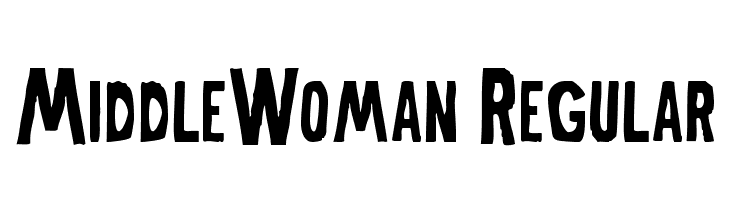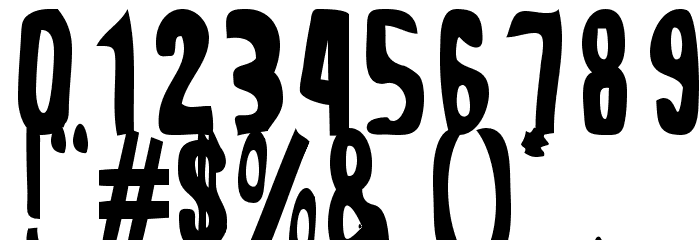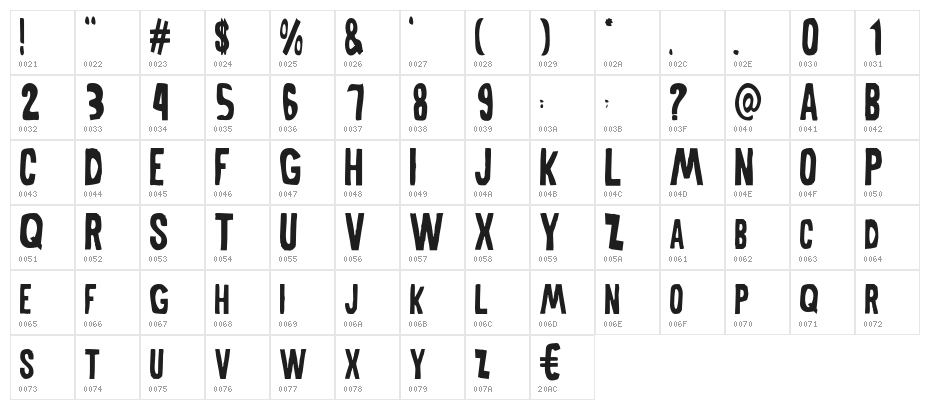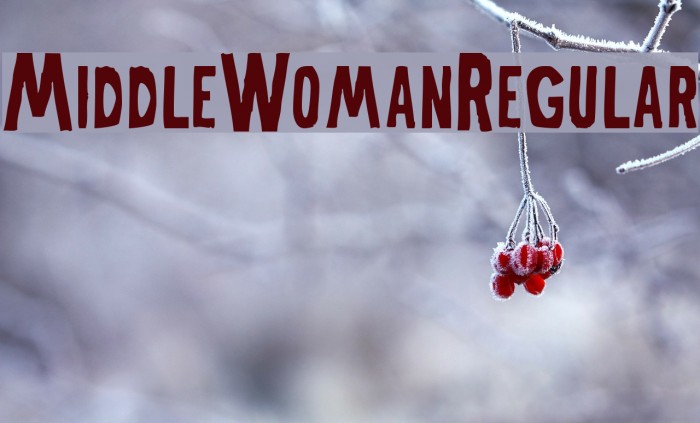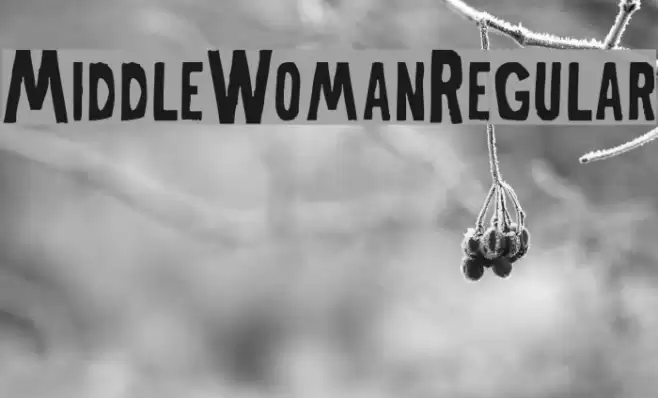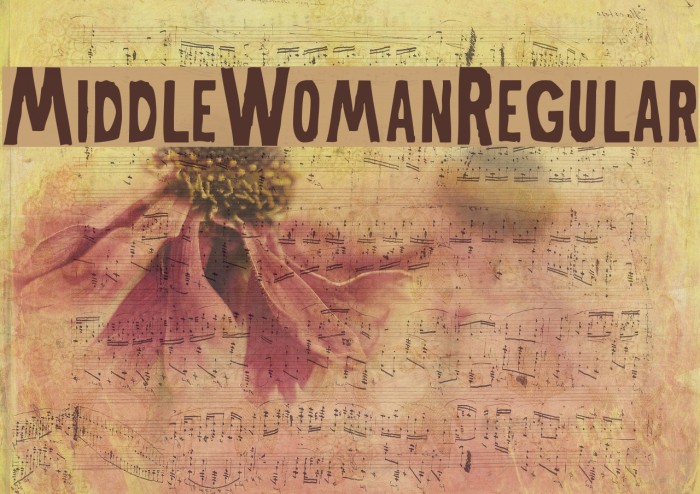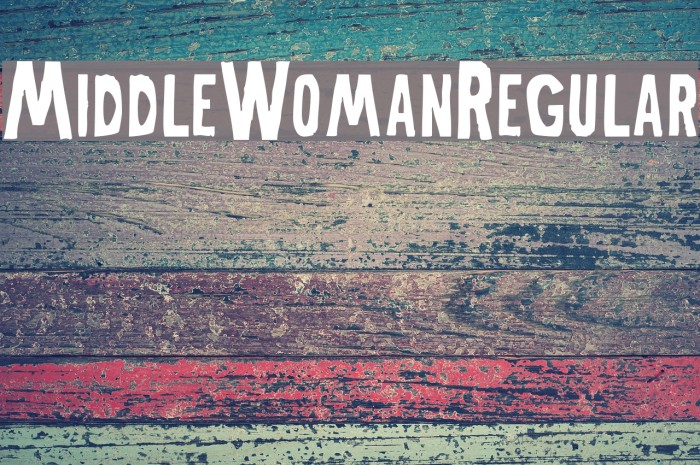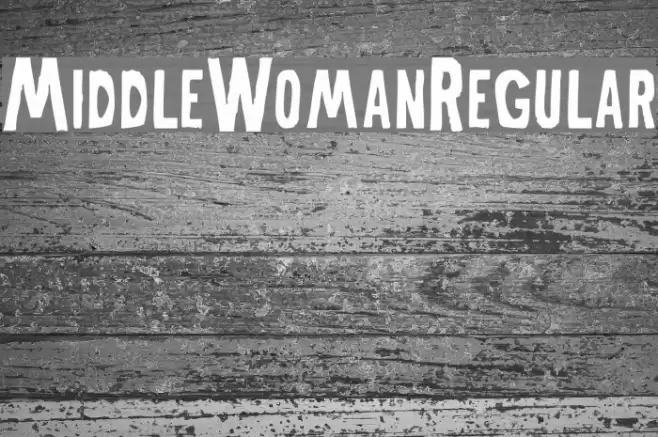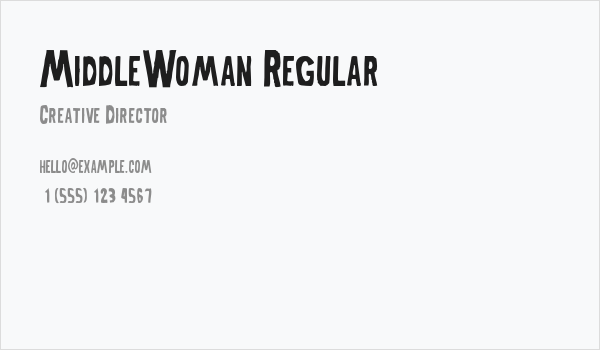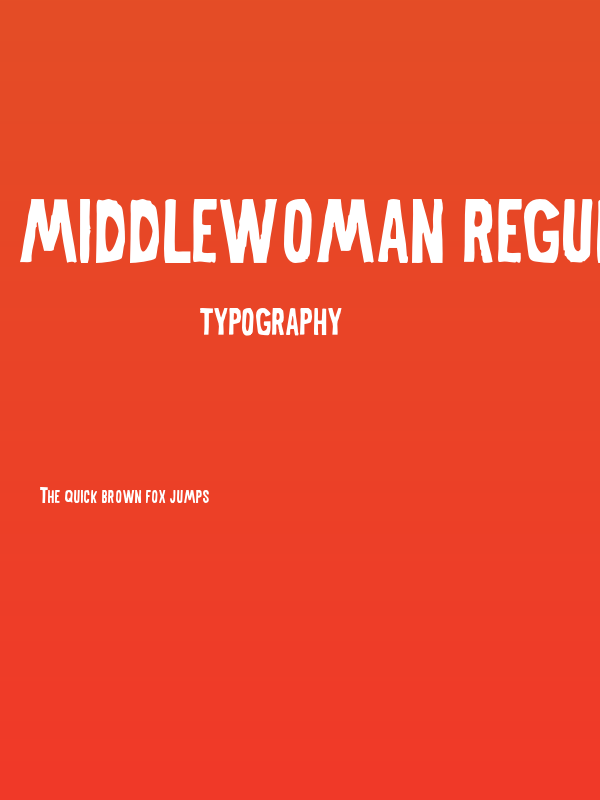
MiddleWoman-Regular Font
MiddleWoman-Regular Description
This font features a bold and expressive style with a hand-drawn appearance. The characters are slightly irregular, adding a playful and dynamic feel. The uppercase letters are prominent and assertive, while the lowercase letters maintain a consistent style with a touch of whimsy. Numbers and special characters are equally bold, ensuring a cohesive look across all text elements. The overall design is eye-catching and ideal for projects that require a strong visual impact.
| Proposed Projects | Ideal for posters, branding, packaging, and any project that benefits from a bold, artistic touch. |